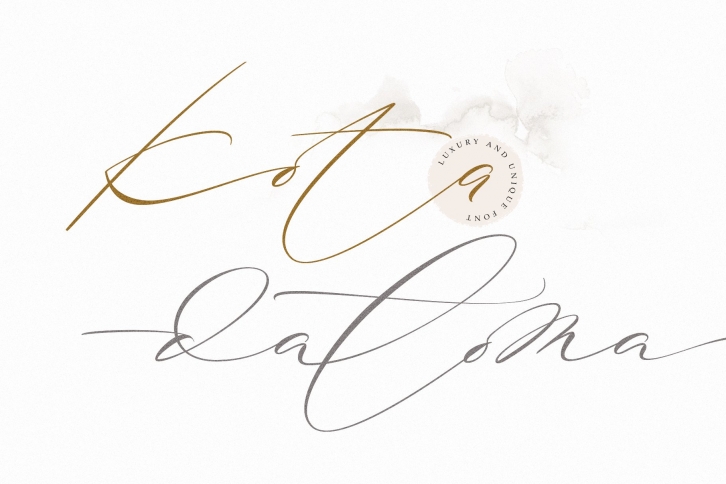
Kota datoma is a beautiful font that was designed by Alcode. It's a great choice for designers and creatives who need such a font. It was released on November 3, 2020 and the file size is 12.21 MB. Kota datoma may give a more youthful, expressive and casual look to your project. It is a very beautiful, refined, elegant, and high-quality font.